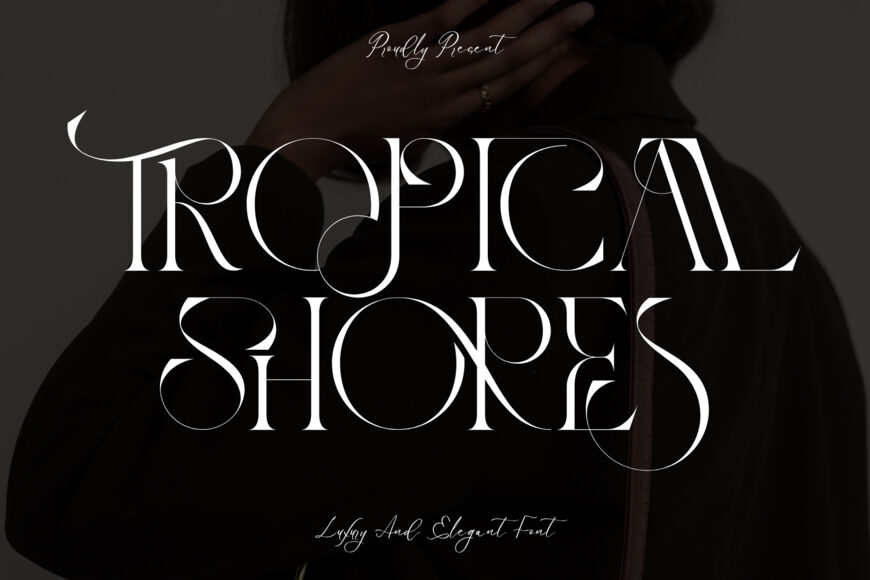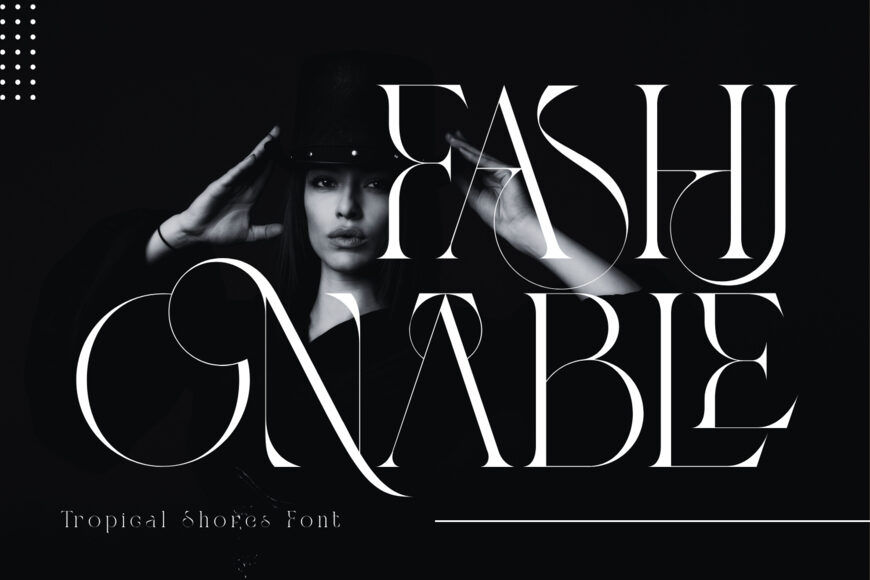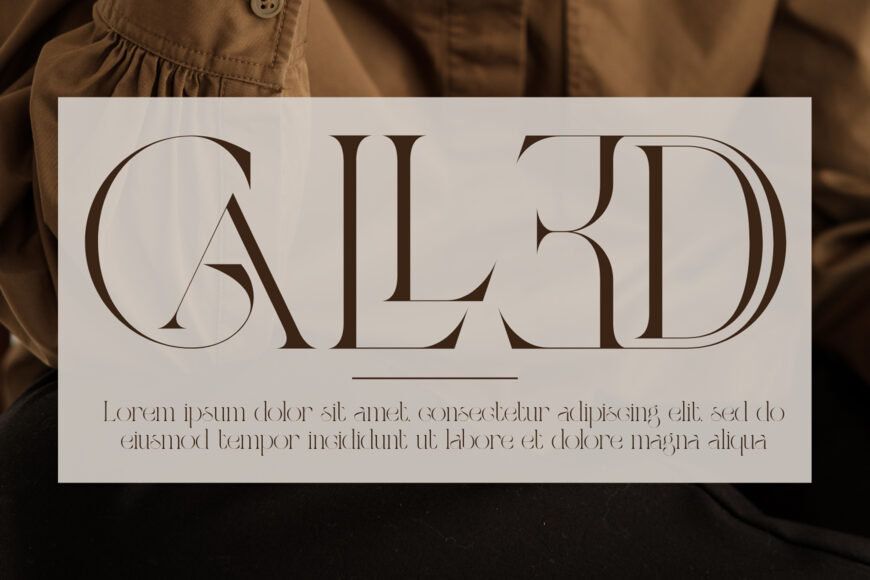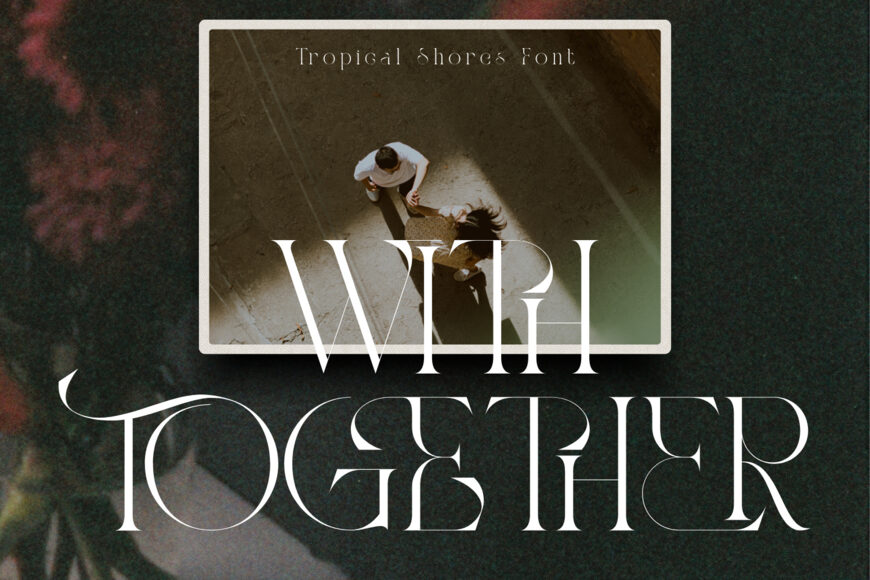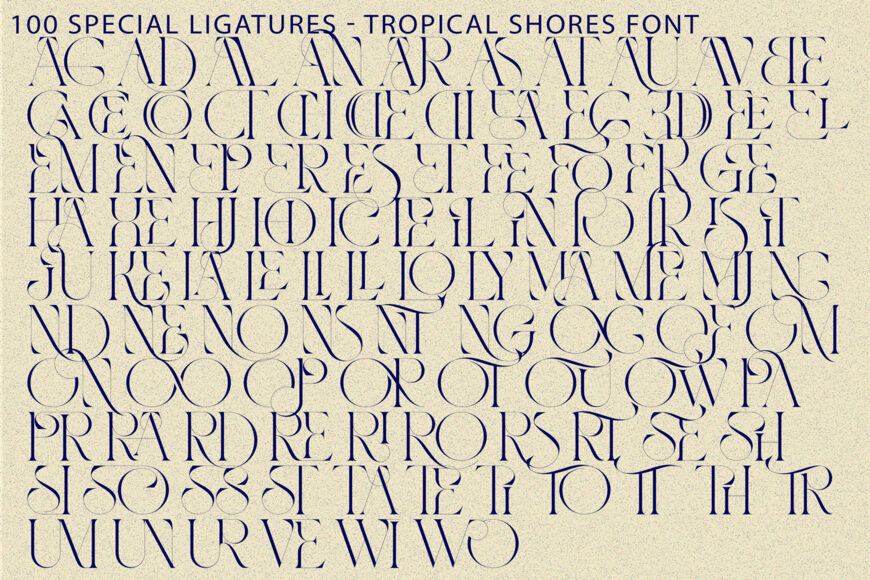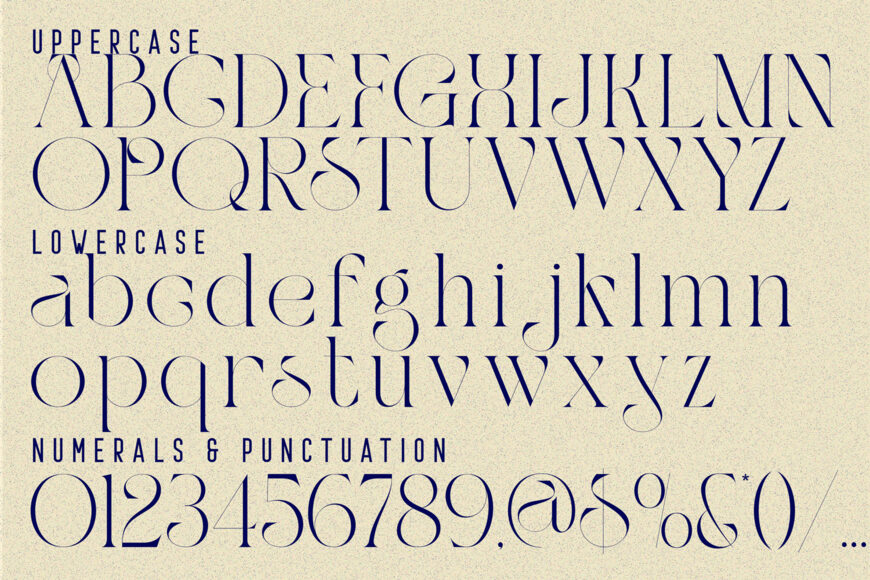
Tropical Shores Font
This luxurious font combines coastal elegance with high-fashion style, perfect for adding sophistication to your projects. It blends classic serif proportions with flowing, wave-inspired swashes, evoking the carefree charm of tropical luxury and modern Art Nouveau design.
Featuring tall, condensed letterforms punctuated by dramatic looping curves and fluid terminals, Tropical Shores transforms ordinary text into custom typographic art. It is meticulously crafted for designers working on luxury resort branding, high-fashion editorial covers, summer beauty packaging, boutique logos, wedding stationery, and lifestyle identity designs.